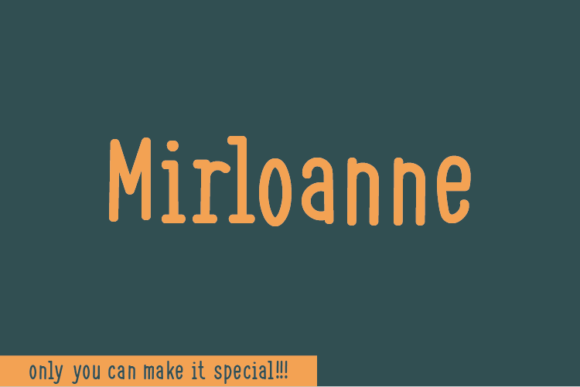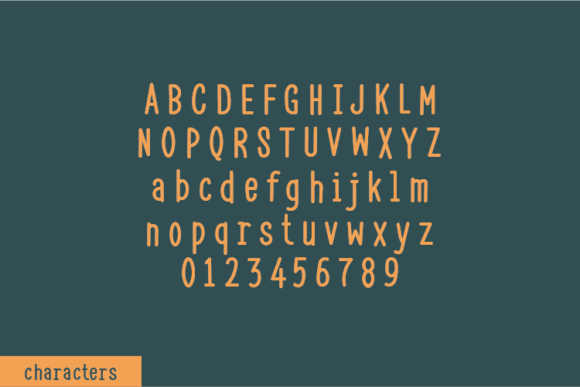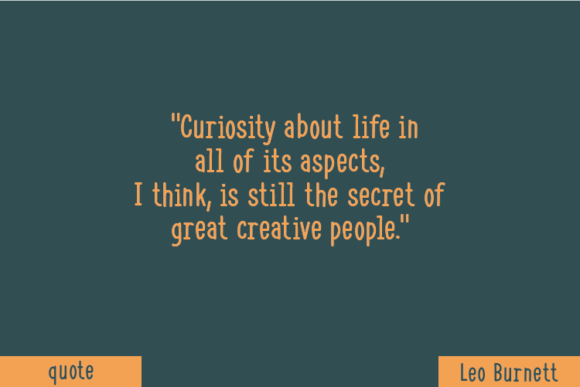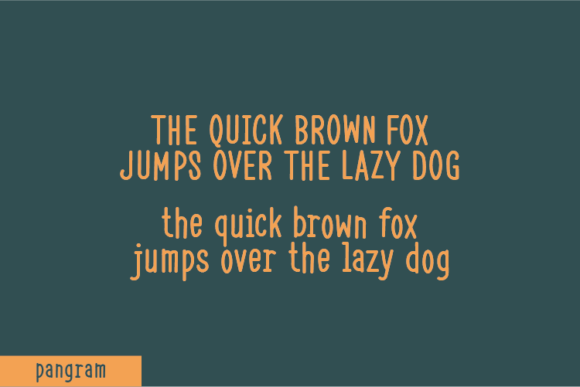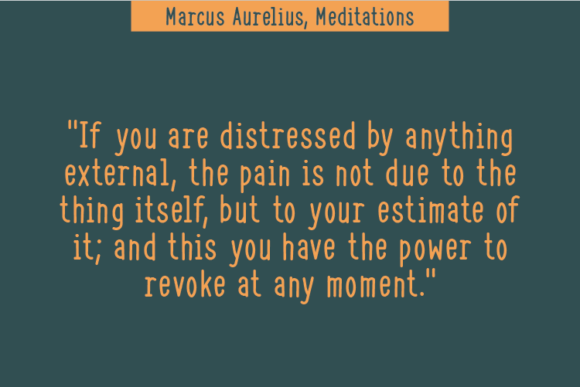
Mirloanne Font
About Mirloanne Font
Mirloanne Font Download introduces a natural handwritten script that blends creativity with authenticity. Each character is designed without altering a single node, which gives this typeface a distinctive and handcrafted look. Instead of striving for mechanical precision, Mirloanne embraces the irregular beauty of real handwriting, making it both charming and unique.
Natural Handwriting with Authentic Character
Mirloanne stands out because it captures the raw details of handwriting in its purest form. Every curve and indentation is preserved, creating a visual rhythm that feels genuine. This makes it an ideal choice for projects that require warmth, originality, and a personal touch.
The font balances character with readability, ensuring it remains practical for design work. Its unique style gives a handcrafted appeal to projects of all kinds.
You can use it effectively for:
• Inspirational quotes and motivational posters
• Casual apparel such as T-shirts, hoodies, and tote bags
• Digital and print notes, planners, and journals
• Creative packaging and product labeling
• Greeting cards, stationery, and personalized gifts
This makes Mirloanne a favorite among creatives who need a reliable, adaptable handwritten font for multiple projects.
Why Designers Love Mirloanne
Designers value fonts that bring originality without losing functionality, and Mirloanne achieves this balance perfectly. Unlike fonts that feel overly polished or artificial, Mirloanne embraces the imperfections of handwriting, giving every project an authentic vibe.
Its charm lies in the way it connects with audiences. A quote in Mirloanne feels heartfelt, a product label feels personal, and apparel designs feel approachable. This natural quality makes it a strong choice for both personal and commercial use.
Versatile Across Projects
Mirloanne is not limited to one specific type of design. Its structure adapts well to both long passages and short phrases. Quotes look engaging, while notes and journals gain character without losing legibility. Apparel designs pop with individuality, and packaging gains a warm, human touch.
Its adaptability makes it suitable for bloggers, small businesses, educators, and professional designers.
Whether you’re working on quotes, apparel, digital notes, or packaging, Mirloanne ensures your projects stand out with charm and originality.